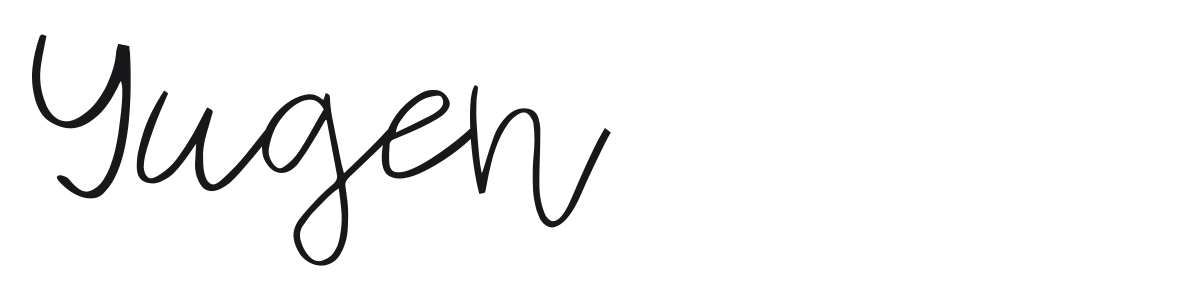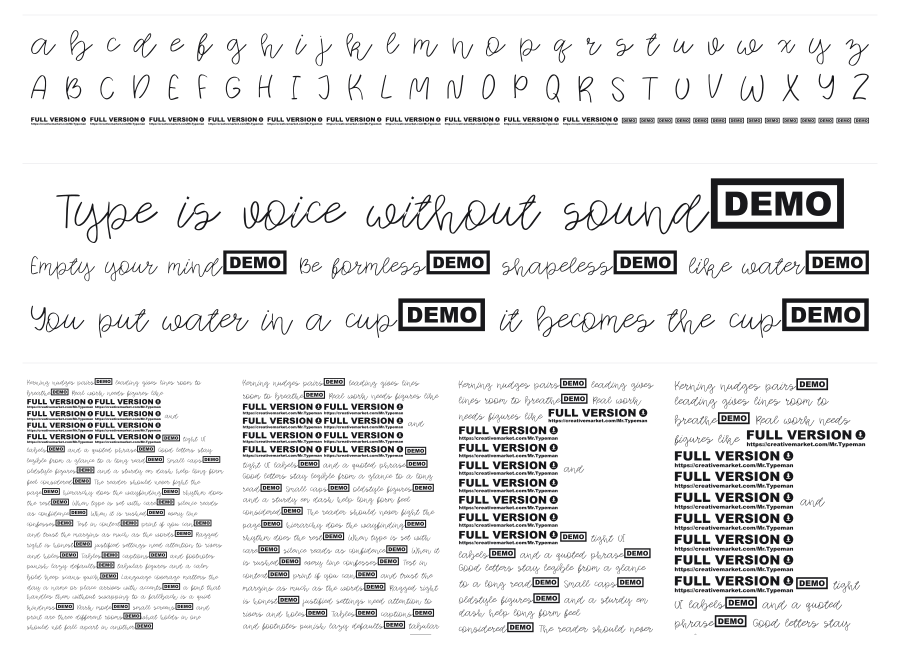
Yugen
Yugen is a thin monoweight handwritten script that mimics the loose, fluid quality of natural pen-on-paper writing. The continuous connections, airy loops, and hairline strokes give it a breezy elegance that sits comfortably between casual and refined. It suits branding, packaging, and invitation design where a personal, handcrafted touch is the point.